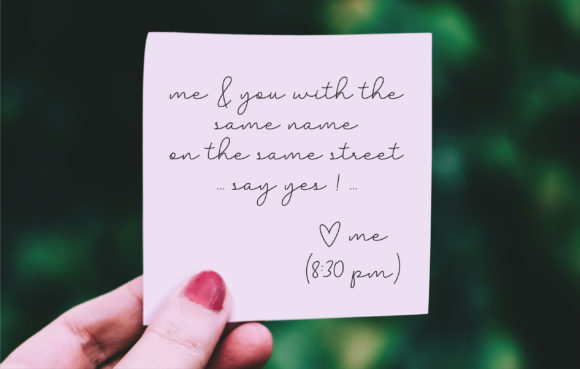
Amigueta Script: A Dynamic and Pretty Crafting Font
There’s a certain magic in a font that feels both personal and polished. It’s the difference between a generic label and one that feels like it was made with care. Amigueta Script captures this feeling perfectly. At its heart, it’s a script font with a modern, handwritten character, but its execution is far from casual. Each letter flows with a natural, connected rhythm, yet maintains a clarity and consistency that speaks to professional design. The strokes have a lively bounce, giving the text an energetic, friendly personality without sacrificing elegance. It’s this balance that makes it a truly creative font—one that can adapt to a project’s mood, whether it’s whimsical, sophisticated, or warmly inviting.
Where Amigueta Truly Shines
The versatility of Amigueta Script is its greatest strength. It’s not a one-trick pony confined to greeting cards. Think of it as a design asset that can elevate numerous projects. For brand identity, it’s a powerhouse. Imagine it on a logo for a boutique bakery, a handmade jewelry line, or a lifestyle blog—the font immediately communicates craft, authenticity, and a human touch. In packaging design, it can make a product feel premium and personal, guiding a customer’s eye to the product name or a special feature. When used in editorial design, such as magazine pull quotes or chapter headings in a book, it adds a layer of visual interest and breaks the monotony of body text.
Its application extends seamlessly into the digital realm. For web design, Amigueta Script can be a stunning choice for hero sections, call-to-action buttons, or featured testimonials, creating focal points that draw users in. On social media graphics, it makes posts and stories pop with personality, helping a brand stand out in a crowded feed. Entrepreneurs and small business owners will find it invaluable for creating cohesive marketing materials—from email headers to sale announcements—that look consistently professional and engaging. Even for personal projects, like custom wedding invitations or event signage, it delivers that pretty, handcrafted aesthetic many seek.
The Art of Font Pairing and Practical Use
Using a display font like Amigueta Script effectively is about understanding its role. It’s designed to be the star, used for headlines, logos, and short bursts of text where its personality can shine. For longer paragraphs, pairing it with a clean, neutral sans serif font or a classic serif font is essential for readability. A good font pairing creates visual hierarchy, guiding the reader’s eye from the expressive headline to the informative body text. For instance, pairing Amigueta with a geometric sans serif like Montserrat creates a beautiful contrast between the organic script and the structured, modern typeface. This kind of thoughtful combination enhances the overall brand perception, making it feel both approachable and trustworthy.
In the end, choosing a typeface is about finding a voice. Amigueta Script offers a voice that is dynamic, pretty, and full of potential. It’s a tool that doesn’t just decorate; it communicates. By understanding its strengths and applying it thoughtfully, you can transform a simple layout into something that resonates, connects, and leaves a lasting impression. Whether you’re building a brand from the ground up or refreshing an existing one, this modern typography choice provides the perfect blend of artistic flair and functional clarity to make your creative vision come alive.